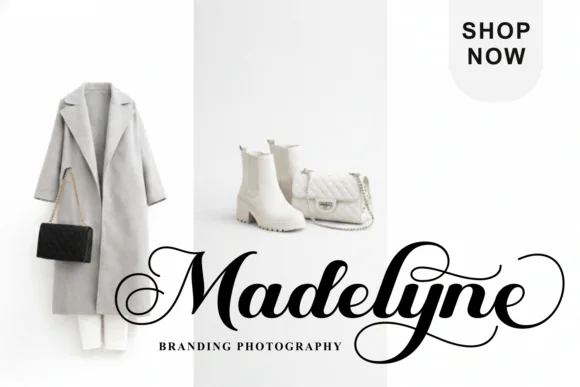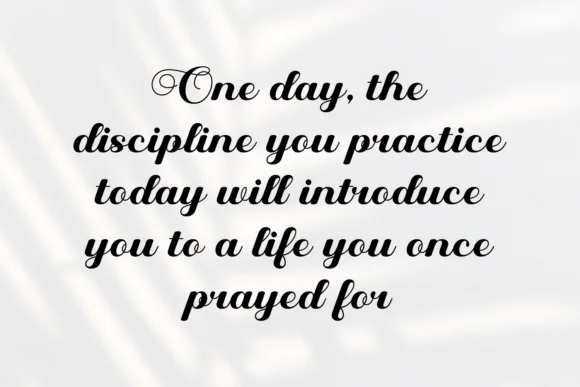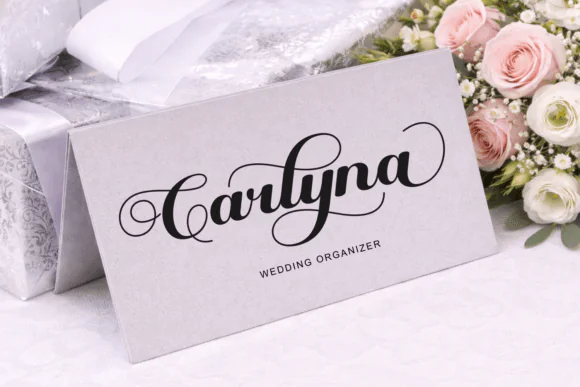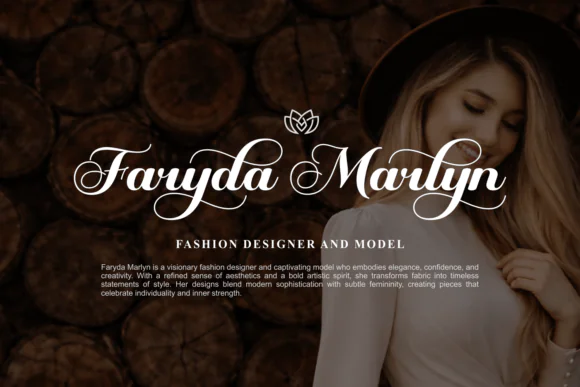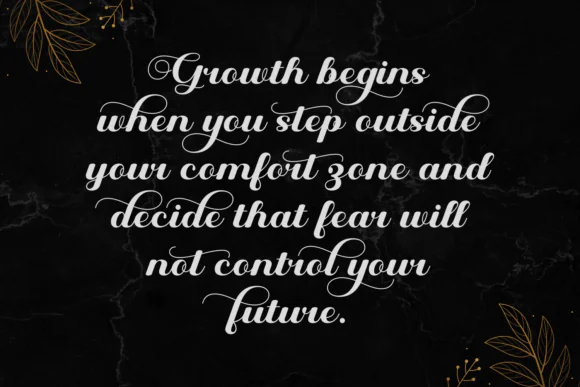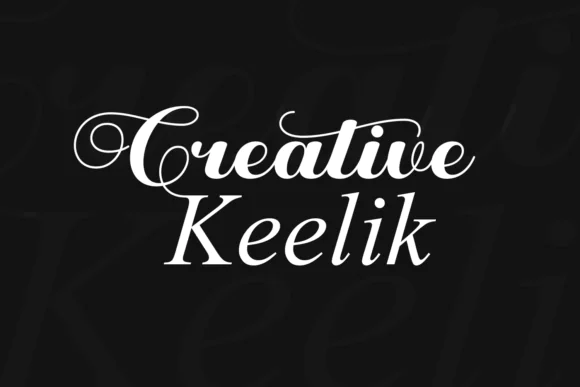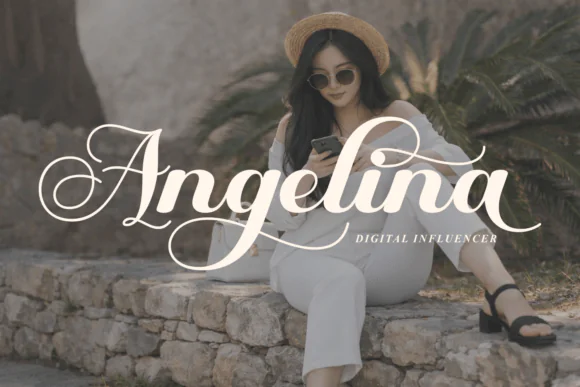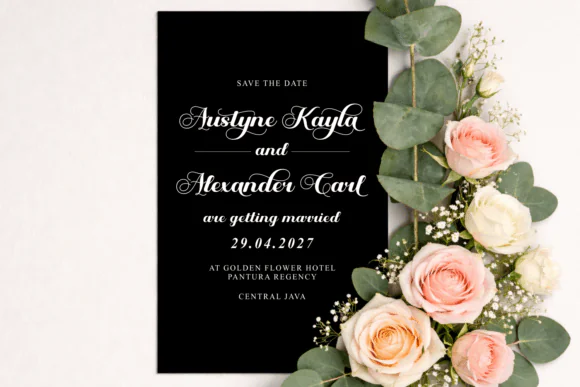
Create timeless, romantic, and luxury-inspired designs with August Wedding Font, an elegant calligraphy typeface made for beautiful wedding and bridal projects. With its sweeping swashes, sophisticated flourishes, and graceful letterforms, this font brings a refined romantic charm to every design.
August Wedding Font is perfect for bespoke wedding invitations, save-the-date cards, bridal shower stationery, thank you cards, event signage, luxury logos, romantic branding, product packaging, greeting cards, social media graphics, quotes, printable wall art, and premium stationery designs.
This typeface is especially useful for wedding designers, event planners, crafters, small business owners, and digital creators who want to add an ethereal, graceful, and high-end handwritten look to their projects. You can pair it with a clean serif font for a balanced elegant layout, or use it alone as a stunning focal point for romantic typography.
August Wedding Font is a beautiful choice for creating premium wedding stationery, elegant event designs, and romantic branding with timeless charm.